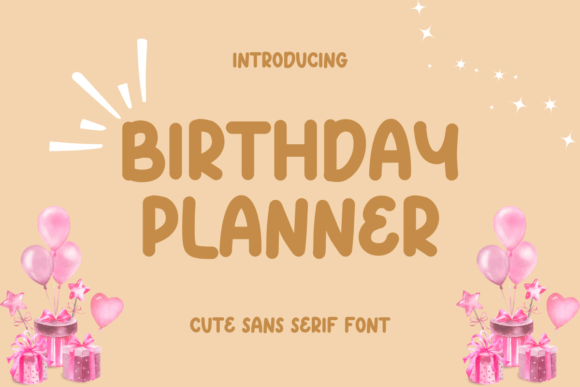
The Birth of a Perfect Font: A Deep Dive into Birthday Planner
I’ll never forget the moment I stumbled upon the perfect font for my sister’s birthday planner stickers. I had been searching for what felt like hours, scrolling through font after font, but nothing seemed quite right. That was until I discovered Birthday Planner – a cute sans serif font that instantly captured the playful and cheerful vibe I was going for. In this article, we’ll take a closer look at what makes Birthday Planner so special and how you can use it to elevate your creative projects.
An Honest Review of Birthday Planner
- ✨ Cute and Playful Aesthetic: Birthday Planner has a super fun and friendly vibe that’s perfect for creating planners, stickers, and other crafty projects.
- ✅ Highly Versatile: This font can be used for a wide range of projects, from digital designs to physical crafts like embroidery and cutting with a Cricut.
- 💡 Easy to Read: The sans serif design makes it easy to read, even at smaller sizes.
While Birthday Planner is an amazing font, there are a few things to keep in mind:
- 🤔 Limited Formality: Due to its playful nature, Birthday Planner might not be the best choice for very formal or professional projects.
- ⚠️ Not Ideal for Body Text: While it’s easy to read, the font’s playful style might not be suitable for long blocks of text.
The Story Behind Birthday Planner
While the exact story behind Birthday Planner’s creation is unknown, it’s clear that the designer had a passion for creating fun and playful fonts. Imagine a designer who loves crafting and planning, sitting down to create a font that would make their own projects shine. They experimented with different shapes and styles until they landed on the perfect blend of cute and readable – Birthday Planner was born!
Q: What type of projects is Birthday Planner best suited for?
A: Birthday Planner is perfect for creative projects like stickers, notes, planners, SVG quotes, t-shirts, wall art, and more.